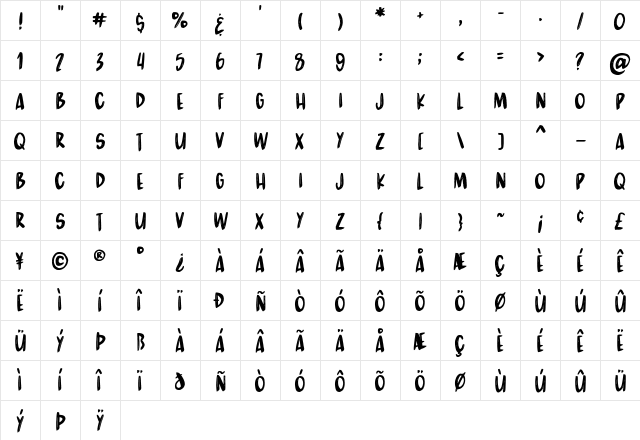
RWA Wakefrost Regular
| Foundry | Rachel White Art |
| Designer | Rachel White |
Design Context for RWA Wakefrost Typeface
RWA Wakefrost is a composed and adaptable typeface that performs quietly and consistently across a wide range of design contexts.